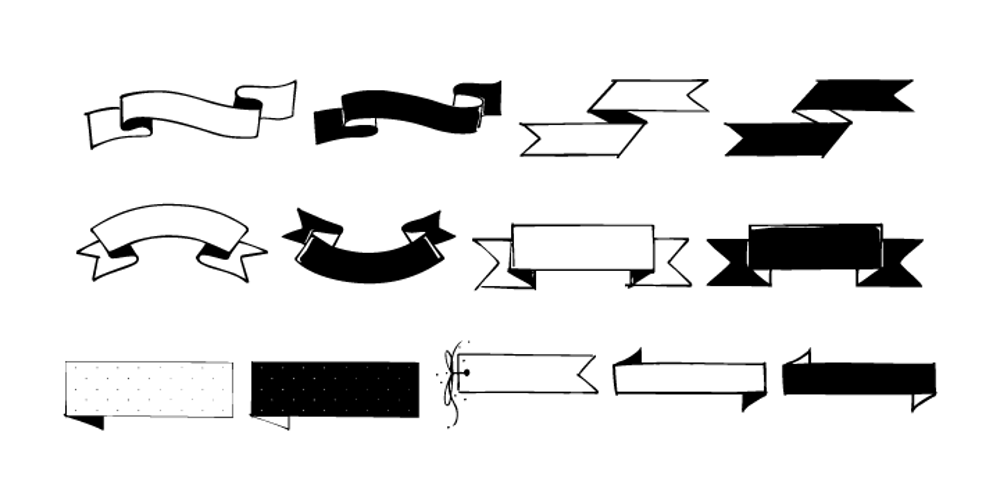
Frames And Banners Font Family was designed by Rae Kaiser and published by Outside the Line. Frames And Banners contains 1 styles and family package options. 32 illustrations of 15 Frames and 17 Banners. Most are line drawings with a reverse version. Lots of dots and grids, scallops and stripes to mix and match. Quick way to add some punch to your layouts. Great for mailing labels, labeling for jars, borders for this and that. Nice scrapbook additions too. Take a look at Rae’s other frame fonts… Frames & Borders and Frames & Borders Too.